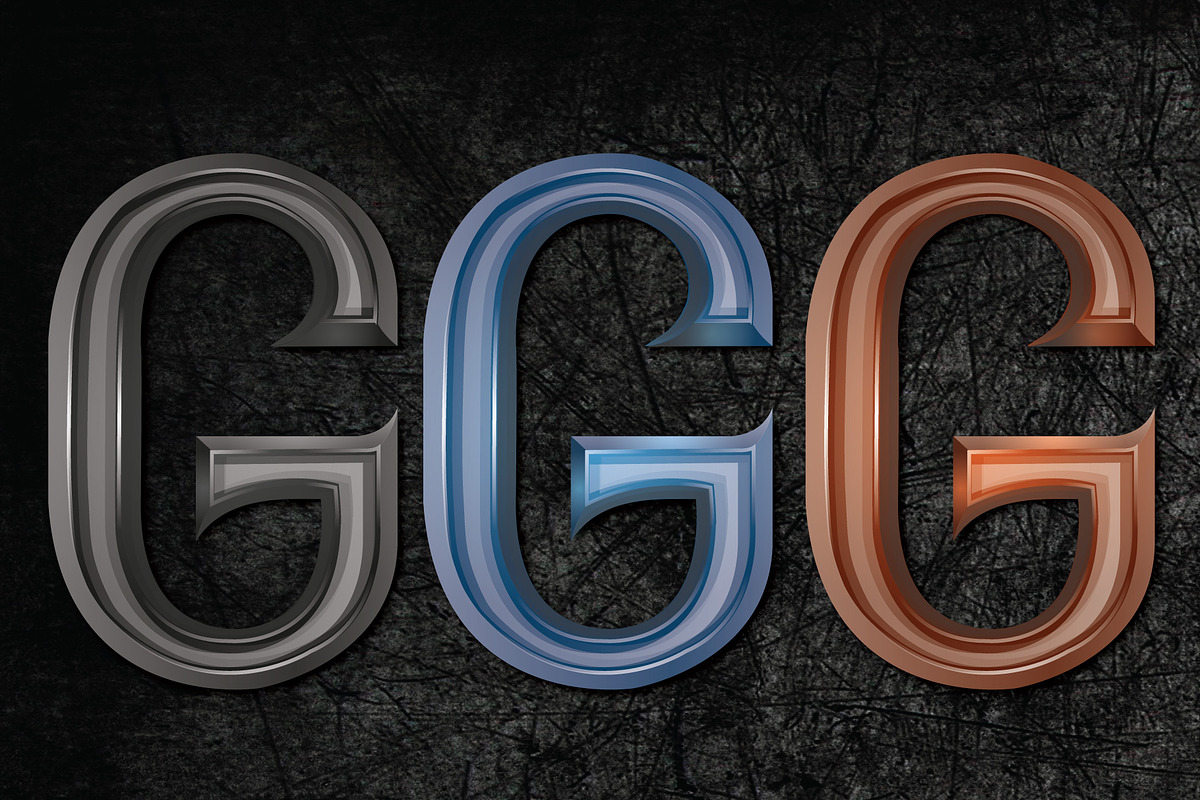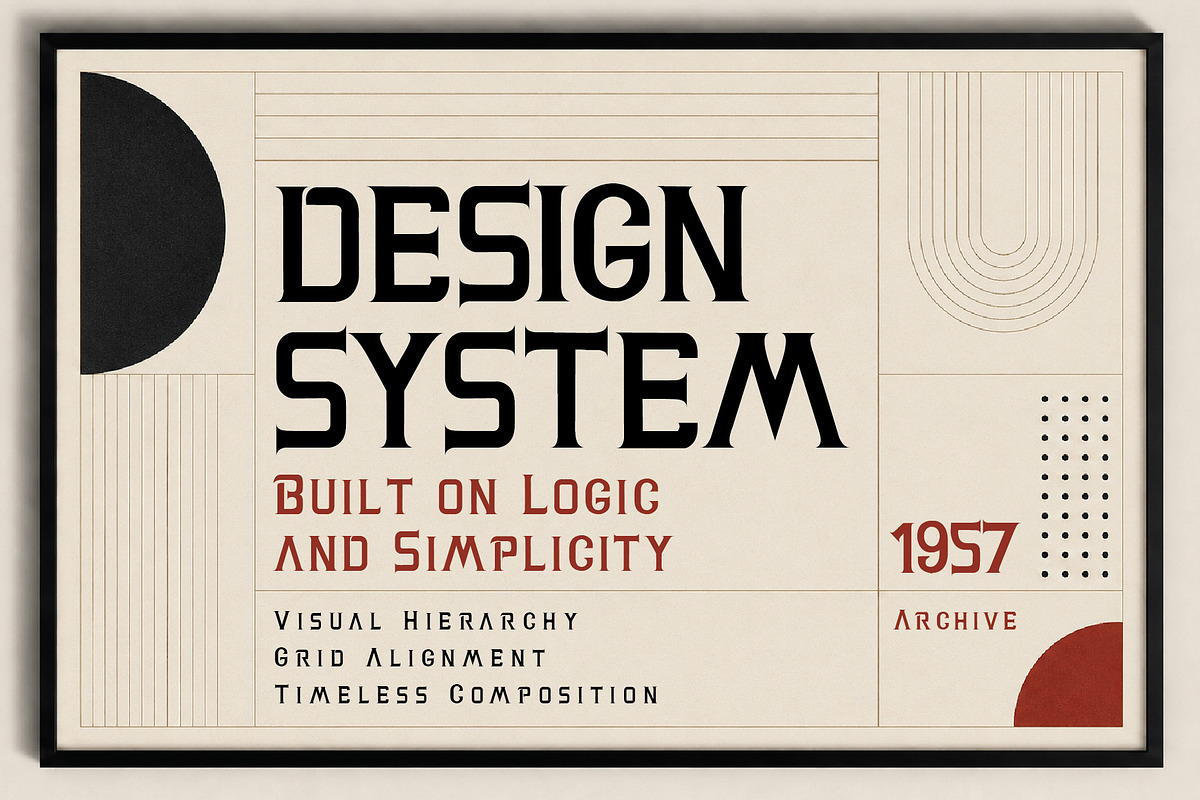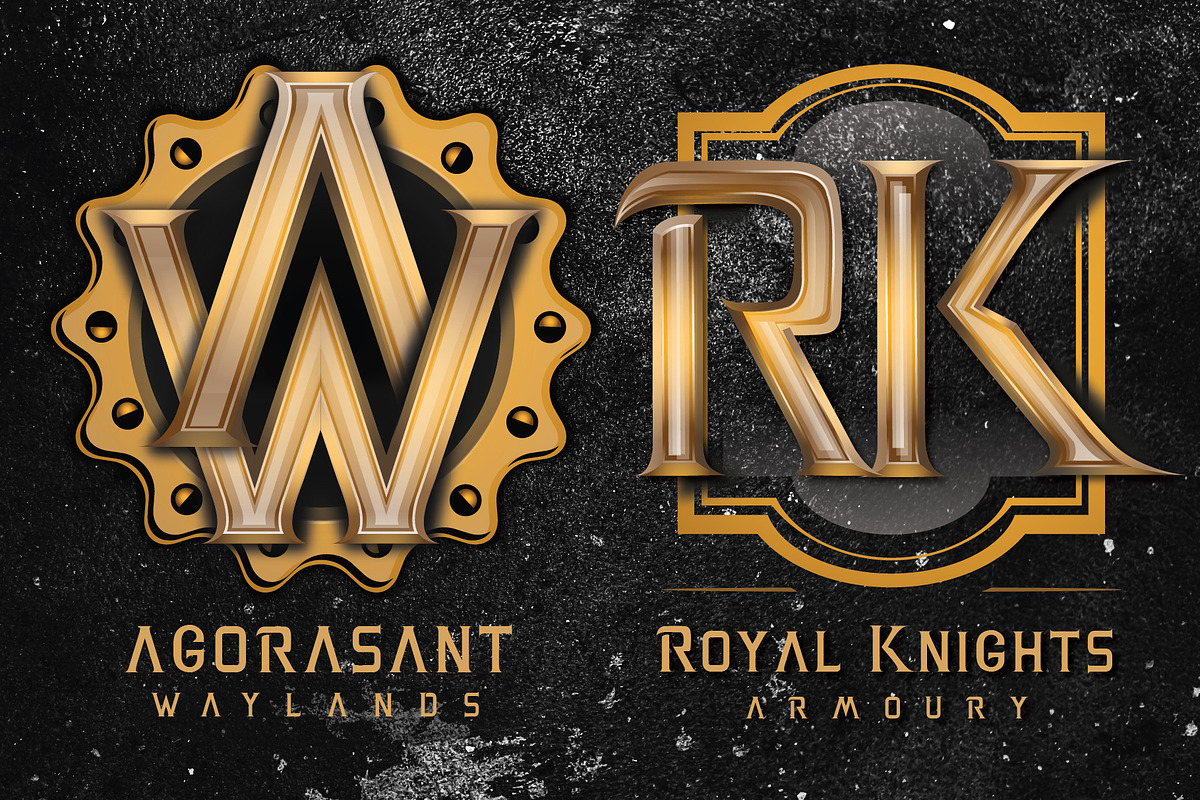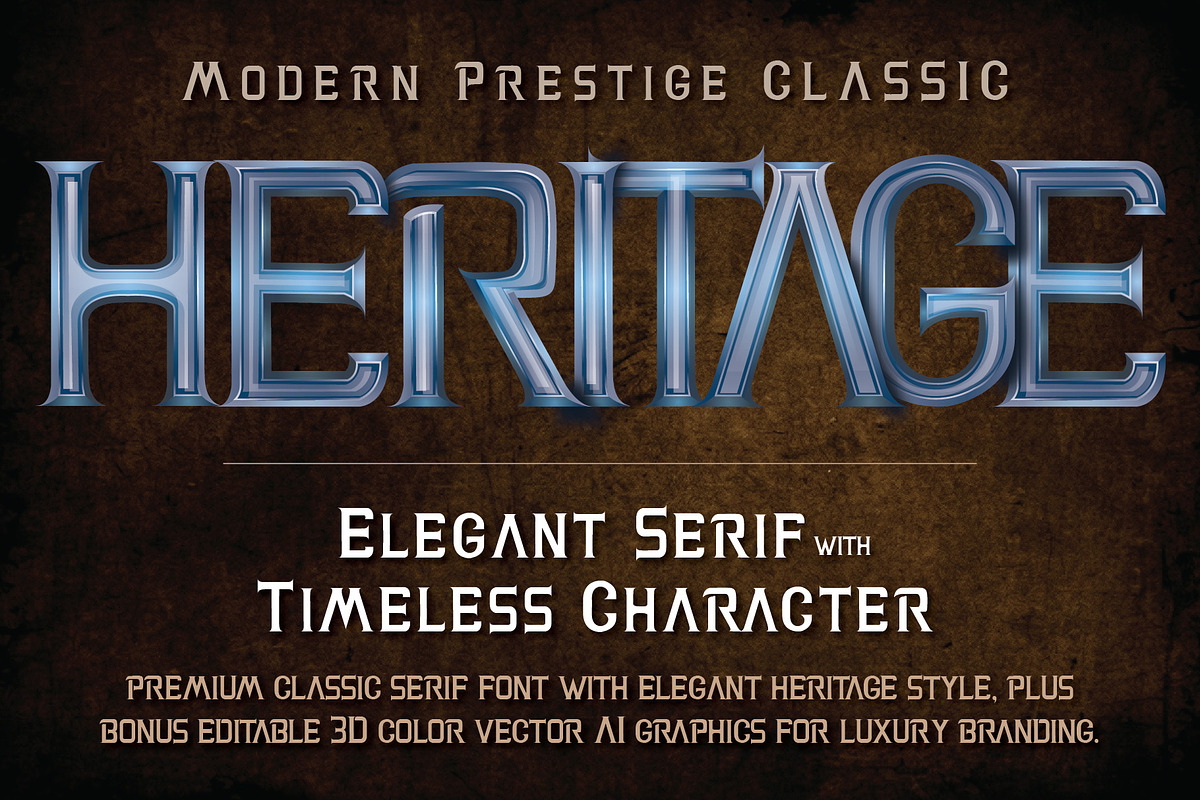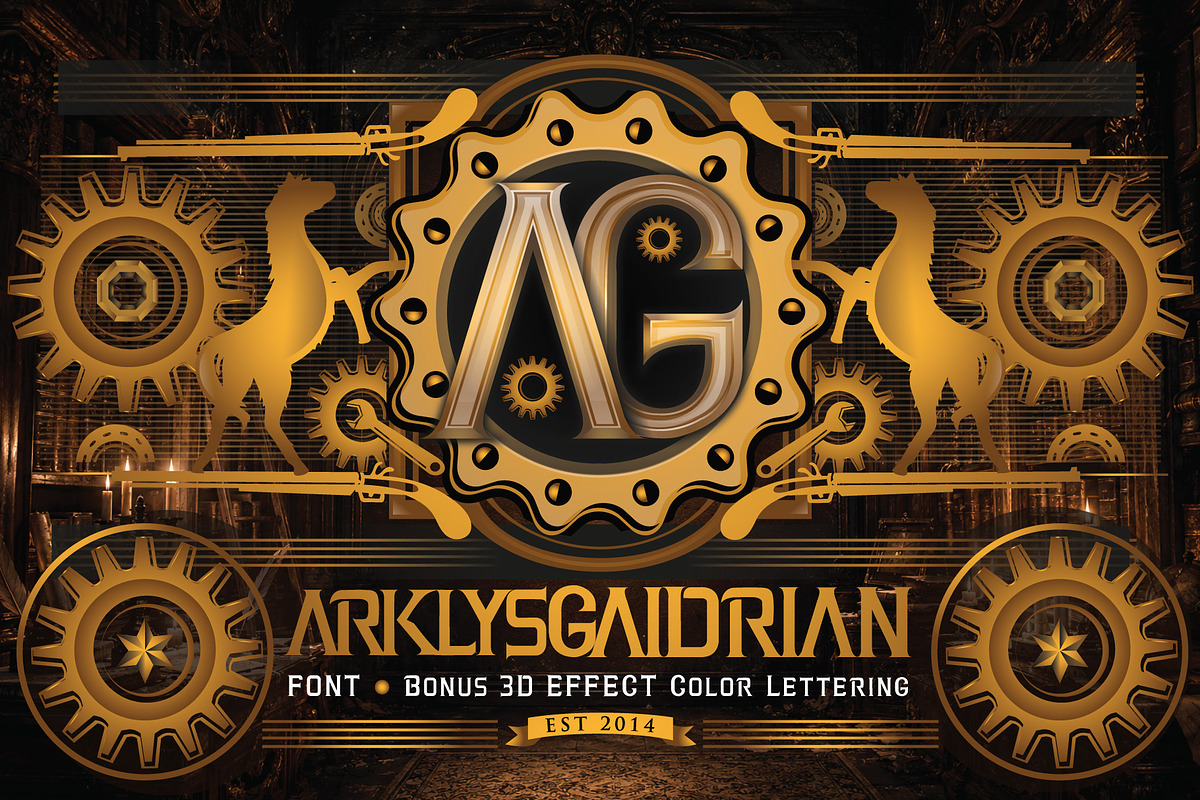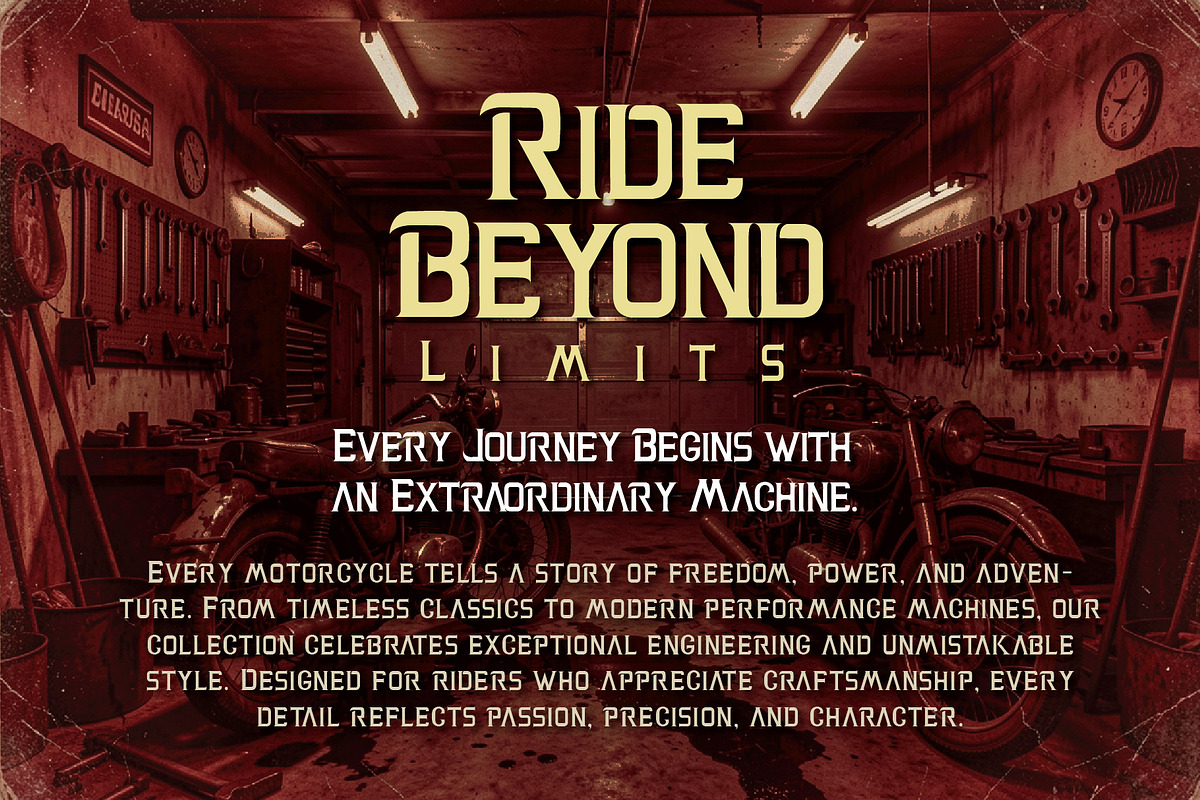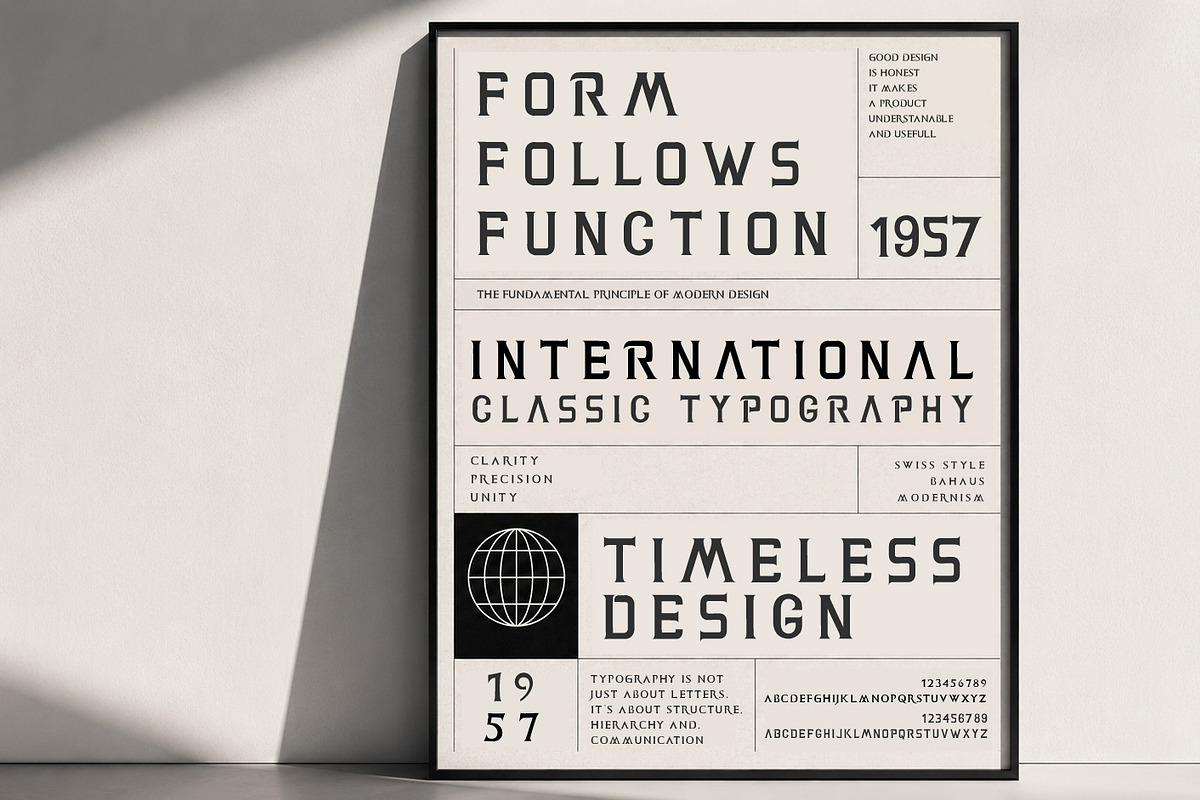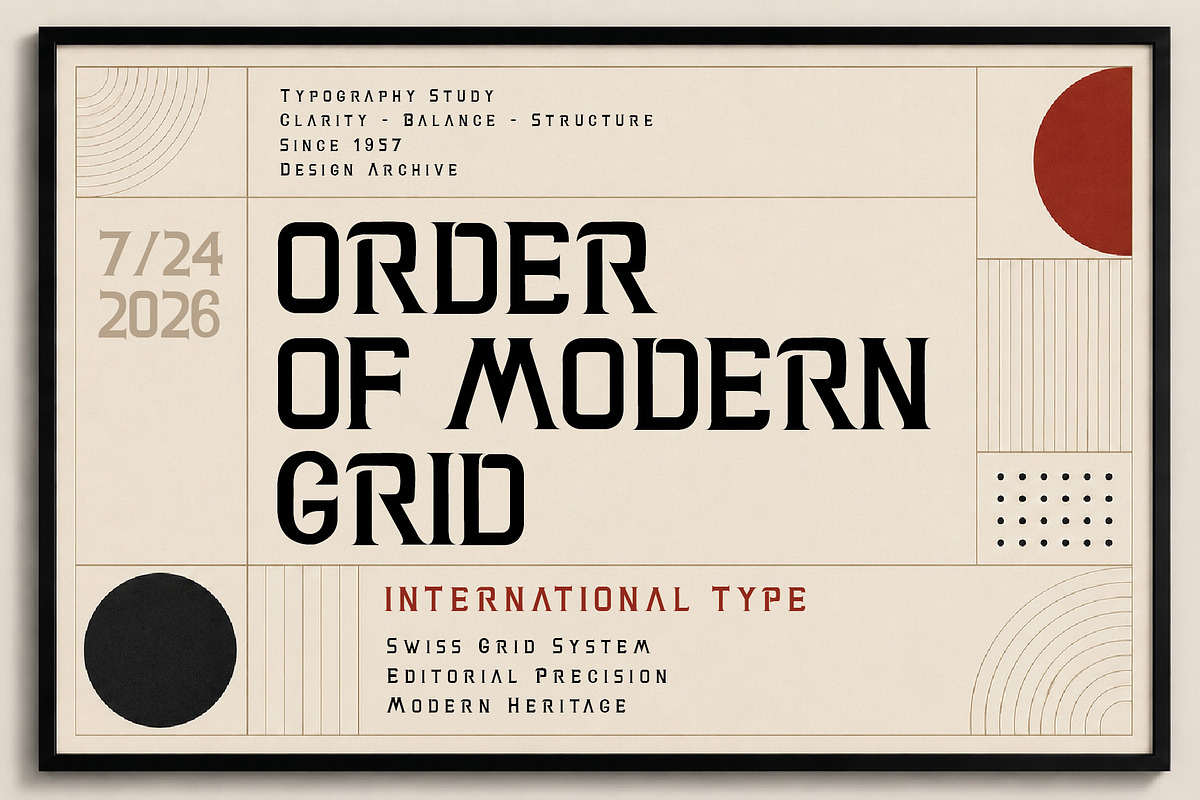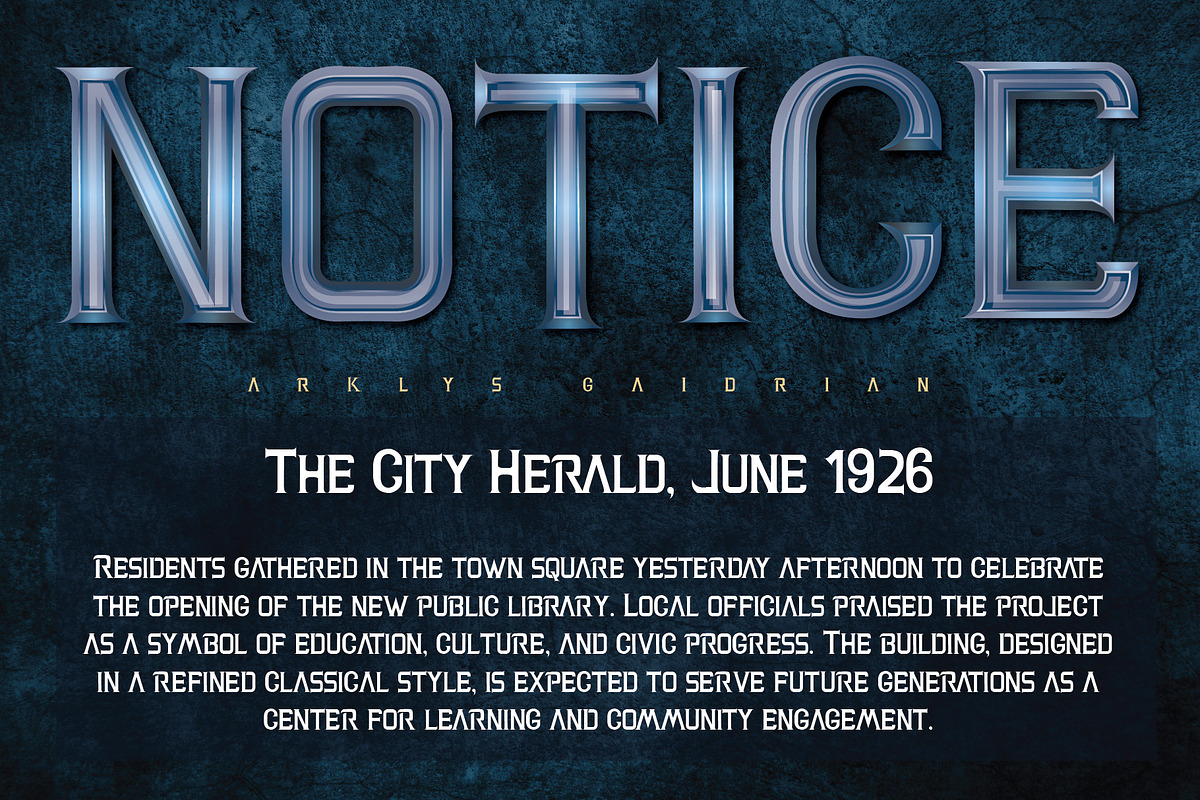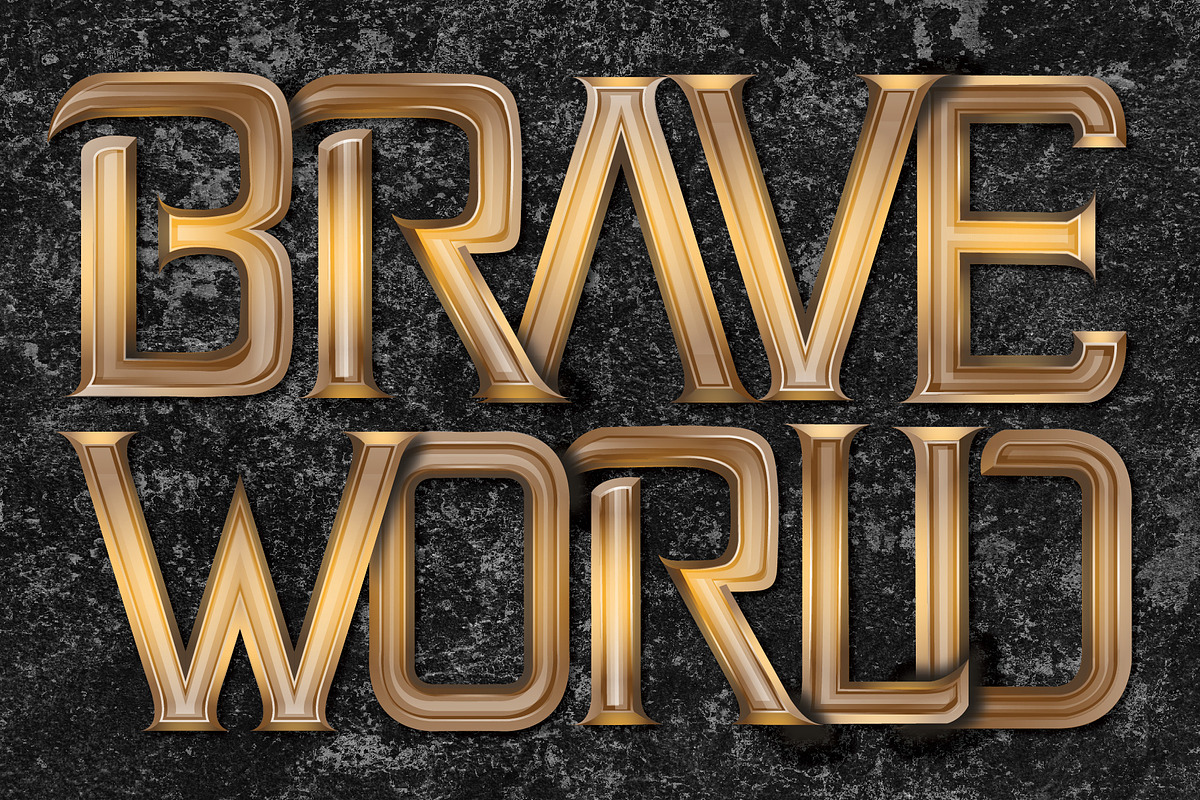
ARKLYSGAIDRIAN - Modern Prestige
ARKLYSGAIDRIAN is a timeless serif font inspired by classic European typography, refined luxury, and heritage craftsmanship. Designed with elegant proportions, sharp details, and graceful letterforms, it brings a sophisticated presence to branding, editorial layouts, premium packaging, invitations, logos, and high-end marketing materials.
Whether you're creating a luxury fashion identity, boutique branding, wedding stationery, or an editorial masterpiece, ARKLYSGAIDRIAN delivers a distinguished look that never goes out of style.